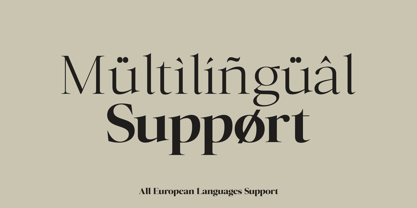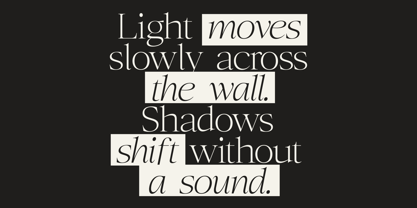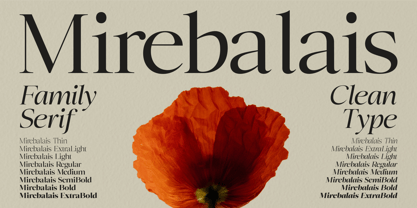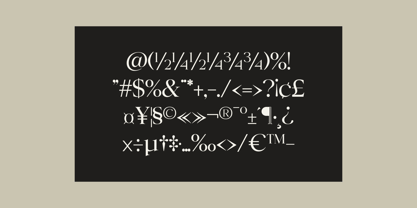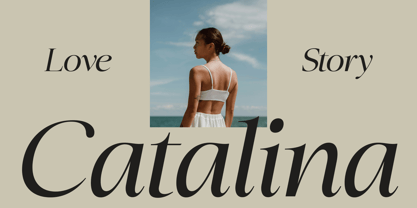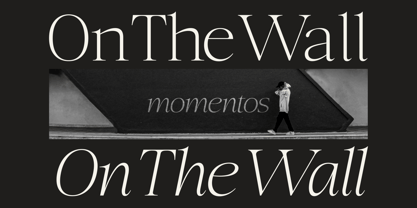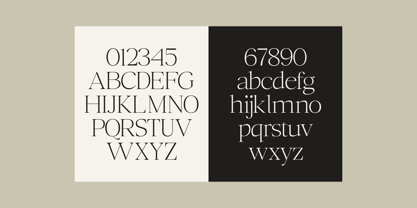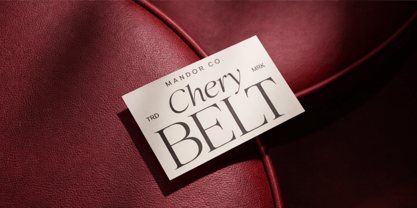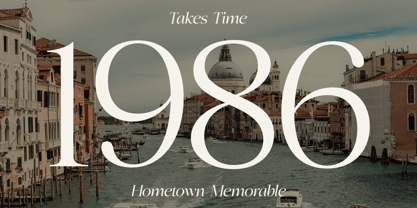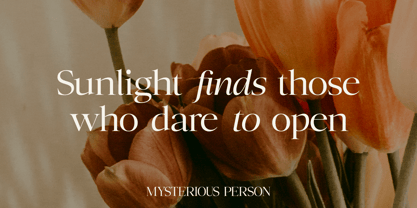
Mirebalais
by Marvadesign
The Mirebalais Font Family was designed by Febrie Setiawan and published by Marvadesign. Mirebalais contains 18 styles and family package options. More about this family
Mirebalais is a refined modern serif typeface that blends classical elegance with contemporary precision. Designed with a high-contrast structure, it features delicate hairlines balanced by confident vertical stems, creating a sophisticated rhythm across both headlines and body text. Its sharp yet graceful serifs are subtly tapered, giving each letterform a sense of movement and clarity without feeling overly ornamental. The curves are smooth and controlled, while the terminals add a gentle, expressive character that elevates the overall aesthetic.
Designers: Febrie Setiawan
Foundry: Marvadesign